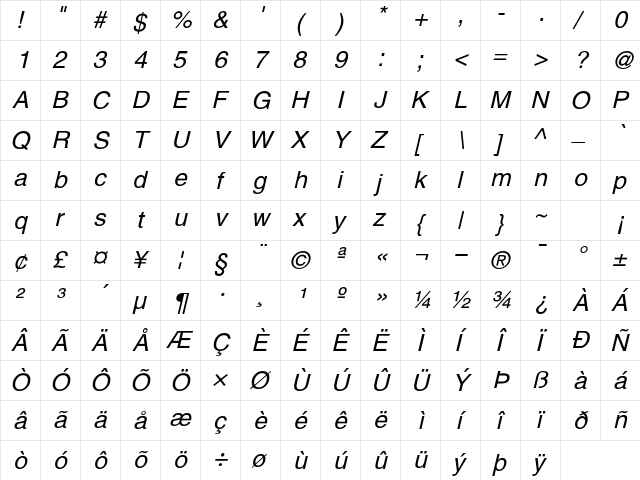
CatalanSSK Italic
Design Context for CatalanSSK Typeface
CatalanSSK offers clean, dependable letterforms without strong stylistic allegiance, making it a practical choice for designers who need flexibility. The slanted form adds forward momentum and visual energy.